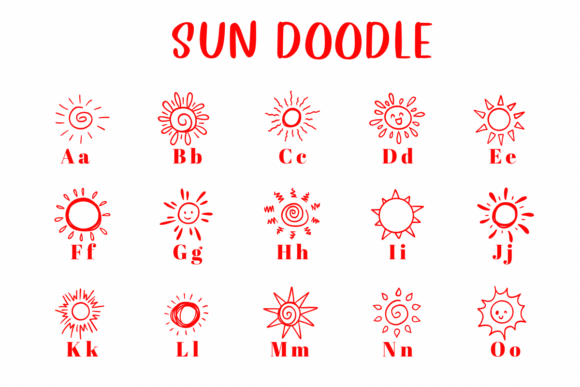
Sun Doodle Font
Sun Doodle is a lively dingbat font packed with hand-drawn sun icons and playful sunshine motifs. Each character features a unique, whimsical sunburst or cheerful doodle—perfect for injecting warmth and personality into your designs. From smiley suns to swirly rays, this font brings a fun, handcrafted charm ideal for summer projects, kids’ illustrations, nature-themed designs, and decorative branding.
Whether you’re designing for a sunny event, a children’s book, or eco-friendly packaging, Sun Doodle adds a radiant, artistic touch with instant visual impact.